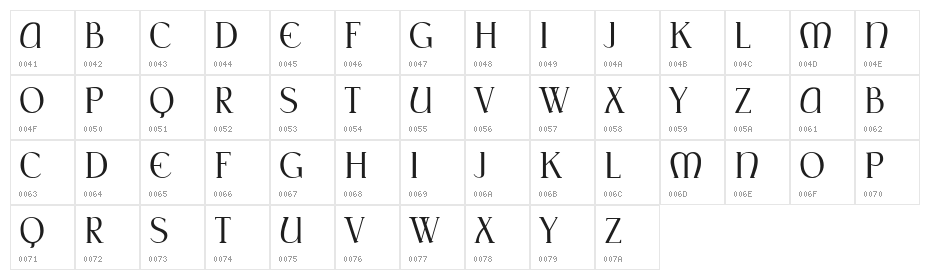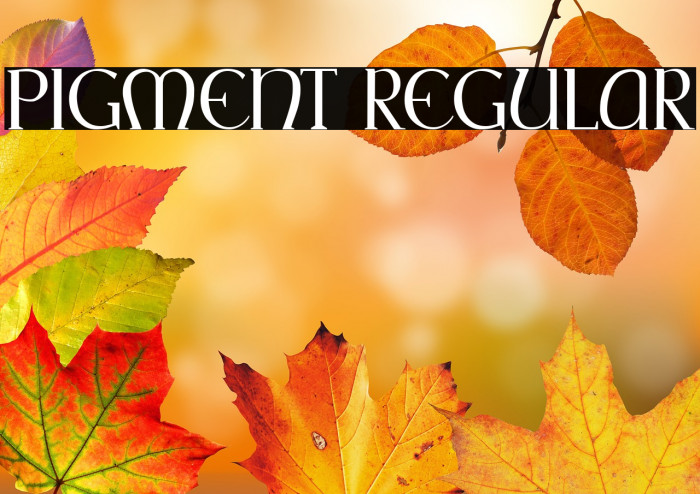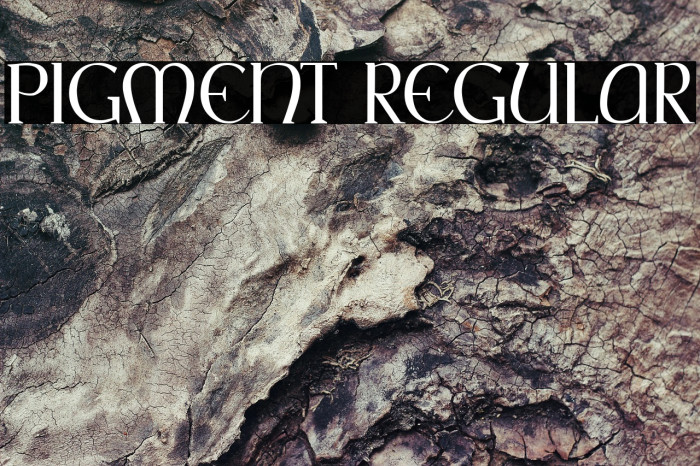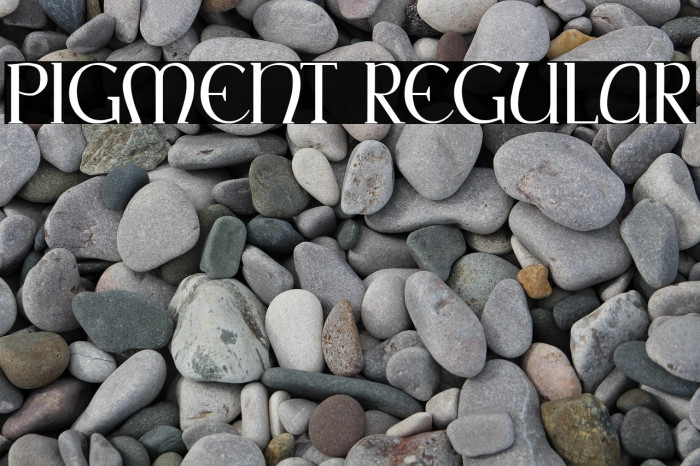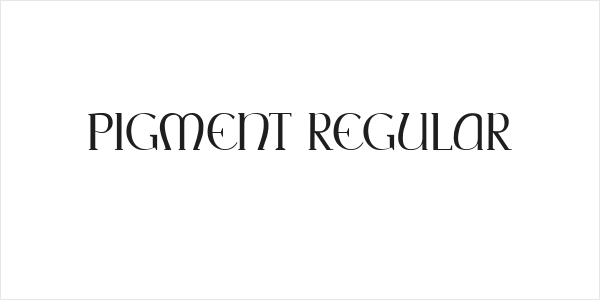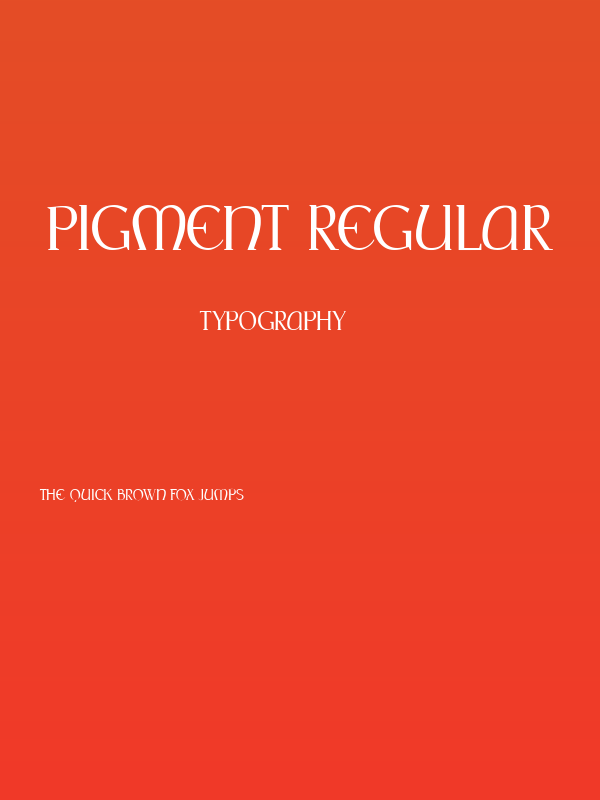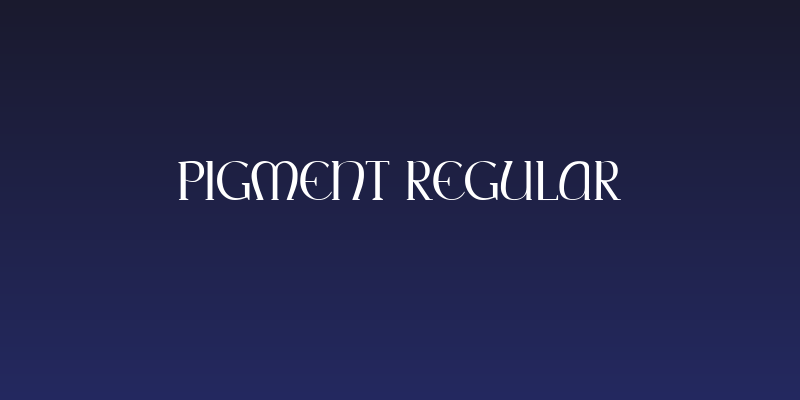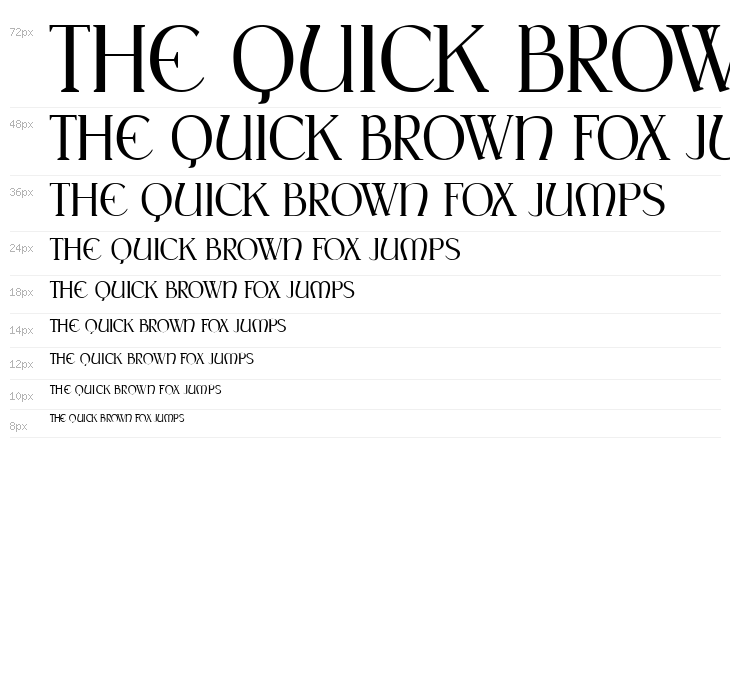
Pigment Regular Font
Pigment Regular Description
This font features a distinctive and elegant design with a modern twist. The characters are crafted with a high contrast between thick and thin strokes, giving it a sophisticated and stylish appearance. The serifs are sharp and pronounced, adding a classic touch to the overall design. The uppercase letters are bold and commanding, while the lowercase letters maintain a consistent style that complements the uppercase. The numerals are clear and easy to read, making them suitable for various applications. Special characters are designed with the same attention to detail, ensuring a cohesive look across all glyphs.